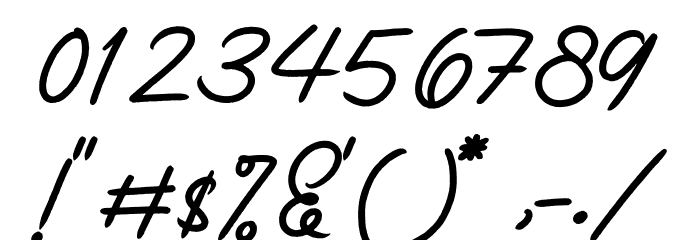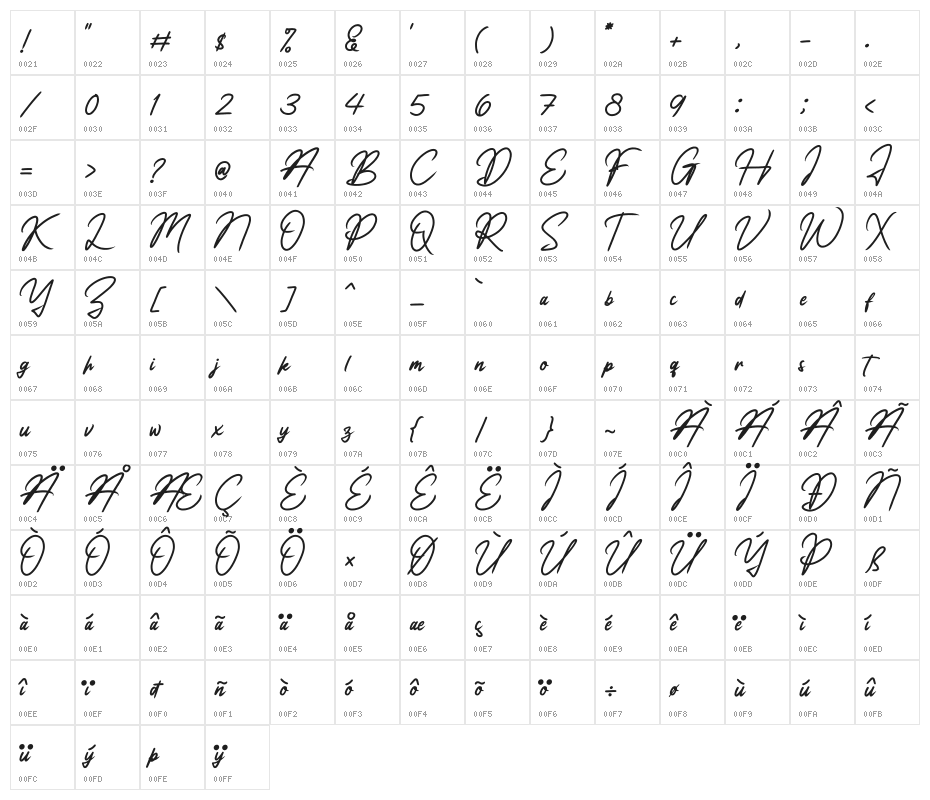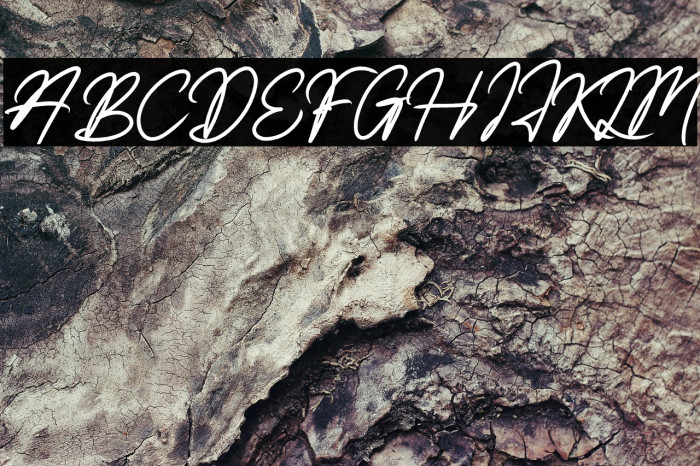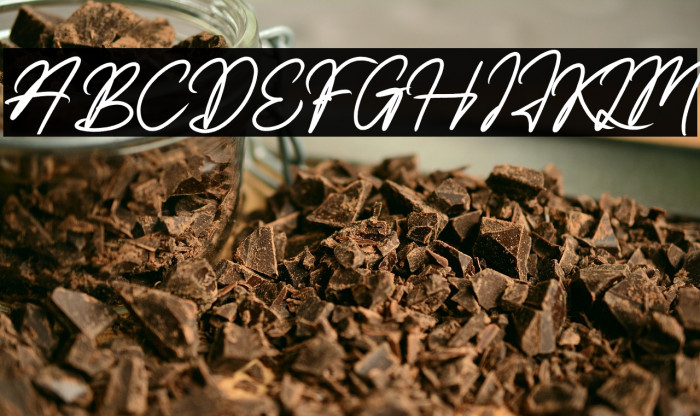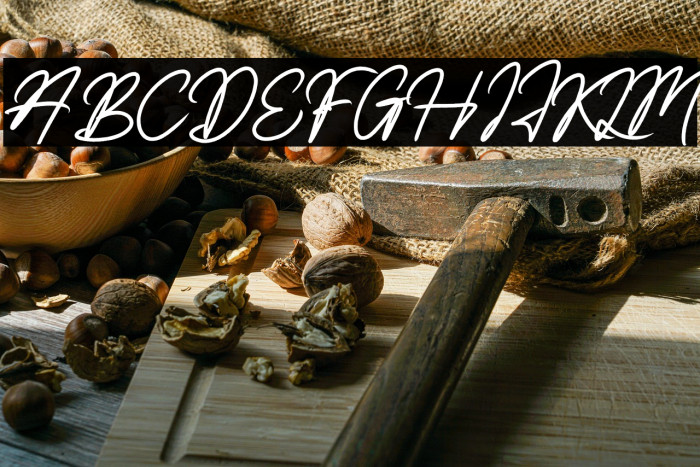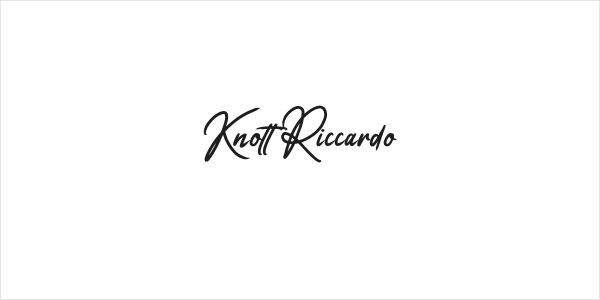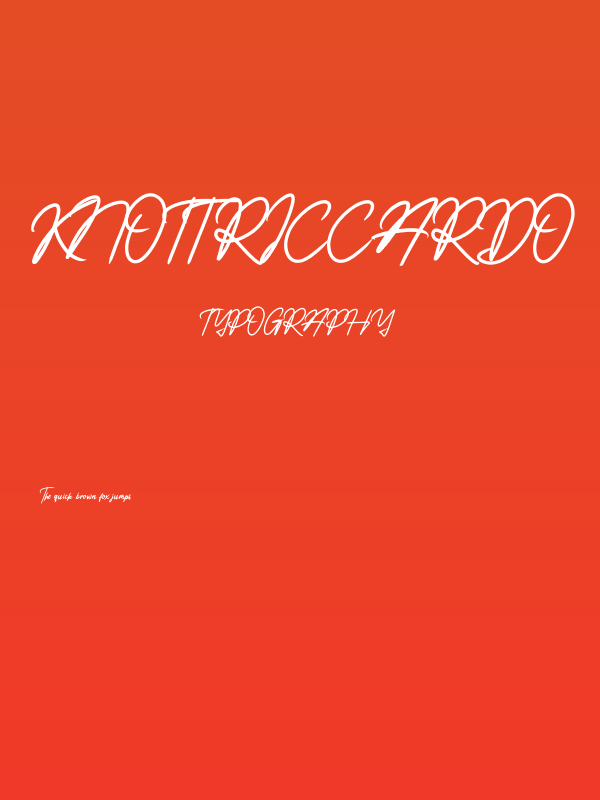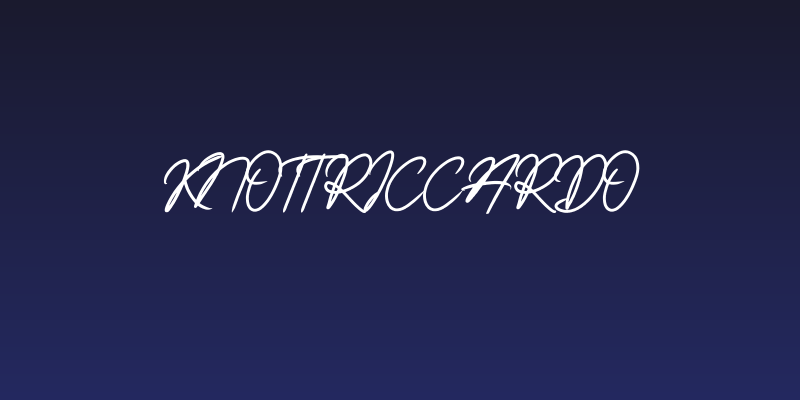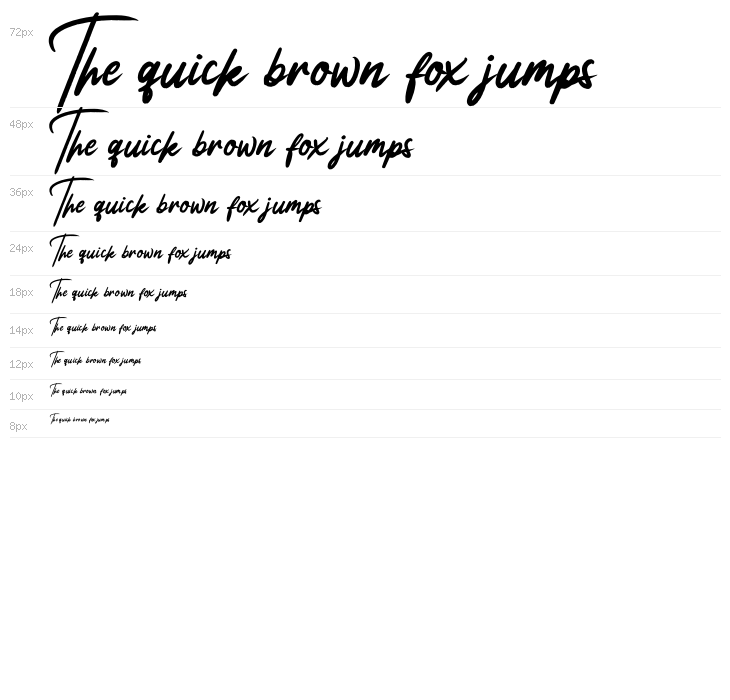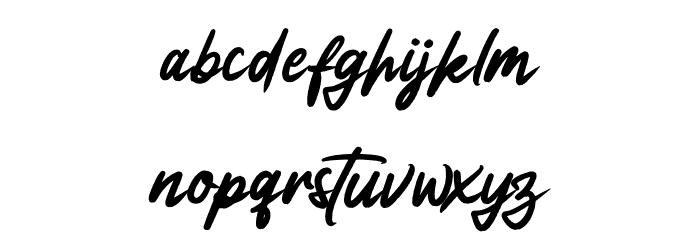
Knott Riccardo Font
Knott Riccardo Description
This font features a dynamic and flowing script style, characterized by its elegant, cursive letterforms. The uppercase letters are bold and sweeping, with distinctive loops and flourishes that add a sense of movement and sophistication. The lowercase letters maintain a consistent flow, with smooth connections between characters, enhancing readability while preserving the artistic flair. The numerals are similarly styled, with a graceful, handwritten appearance that complements the overall aesthetic. The special characters are thoughtfully designed to match the script's fluidity, making this font suitable for a variety of creative applications.
| Overall Style | Elegant, Artistic |
| Proposed Projects | Ideal for wedding invitations, branding, logo design, and elegant stationery. |